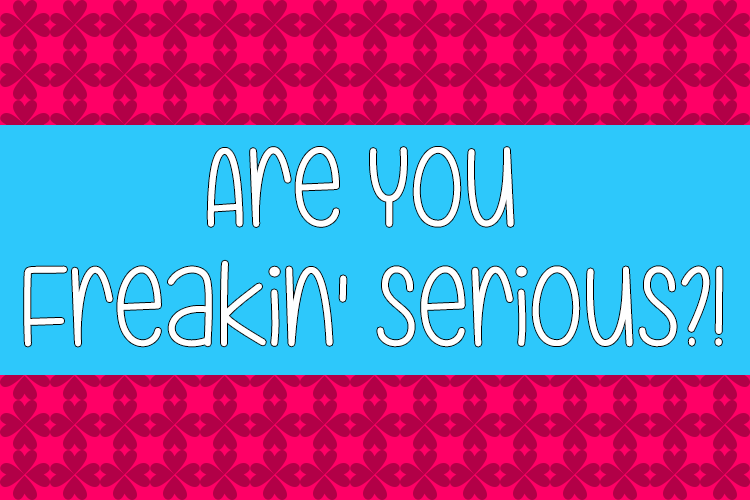
Are You Freakin' Serious
Are You Freakin Serious is an adorable handwritten font that brings a charming touch to all your creative endeavors. Whether you're working on crafts, design projects, or anything in between, this font is perfect for adding a playful and cute element. With its unique and whimsical style, Are You Freakin Serious is sure to make your creations stand out. Download this delightful font today and let your imagination run wild!